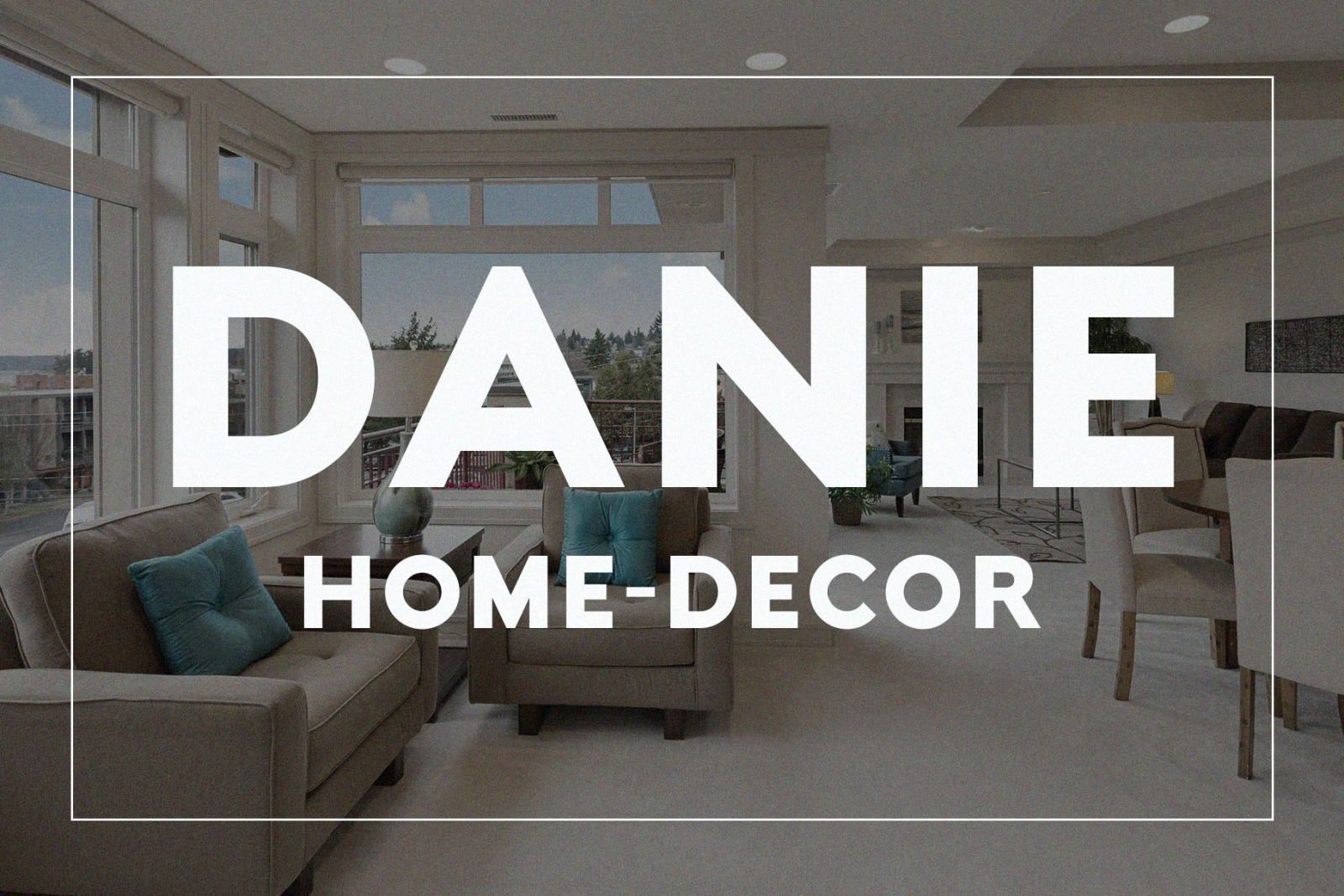
Candle Modern Font
Introducing the new Candle Modern Sans-Serif.
Candle is a classy, modern sans font.
Bold font characters impress firmly, but still look neat and modern
This font is modern and elegant and works great for website, logos, magazines, social media. This font it's matched and ready to be used together for your next design!
For those of you who need a touch of elegance, stylish, classy, chic and modernity for your designs, this font is made for you!